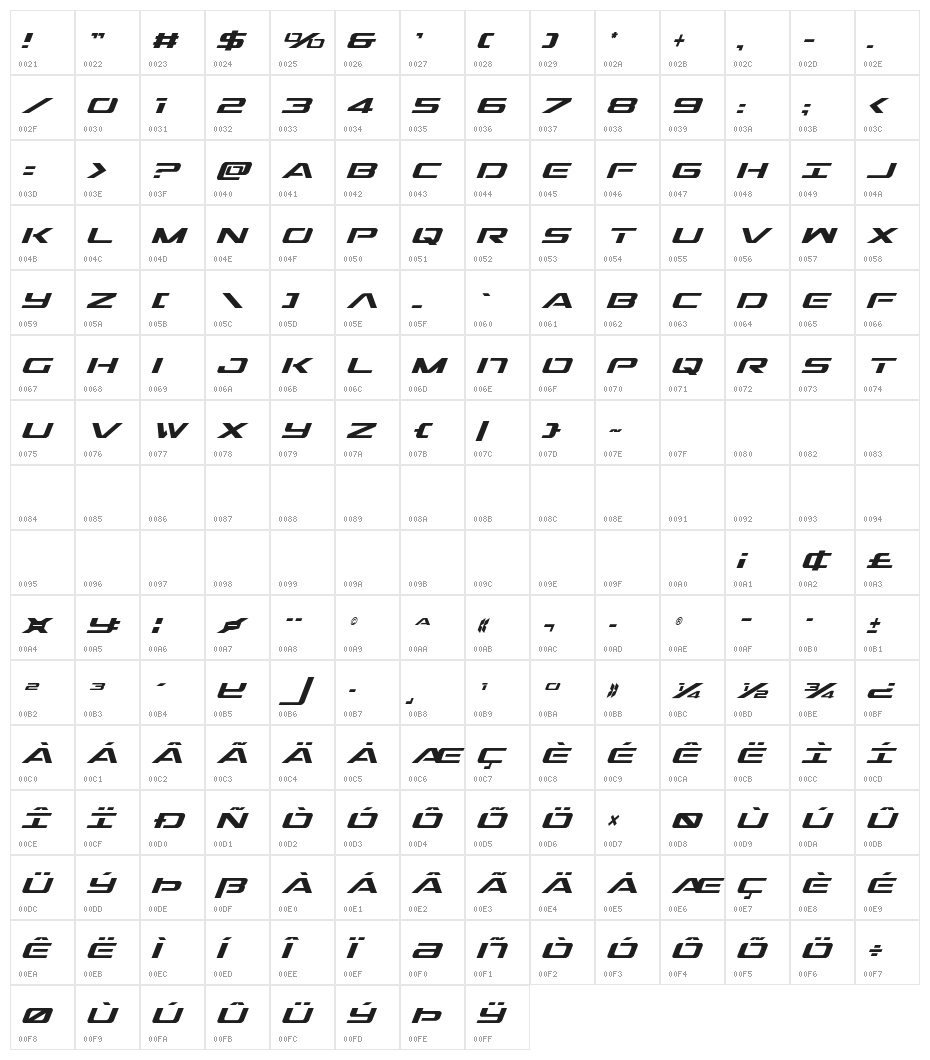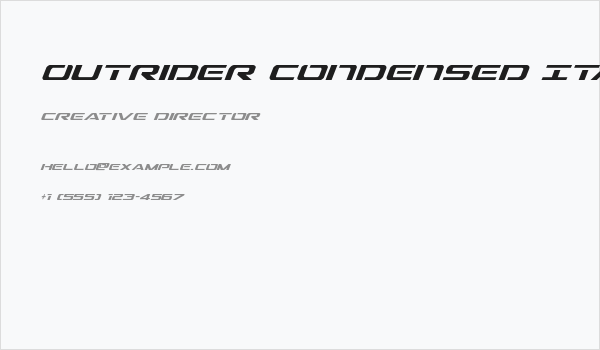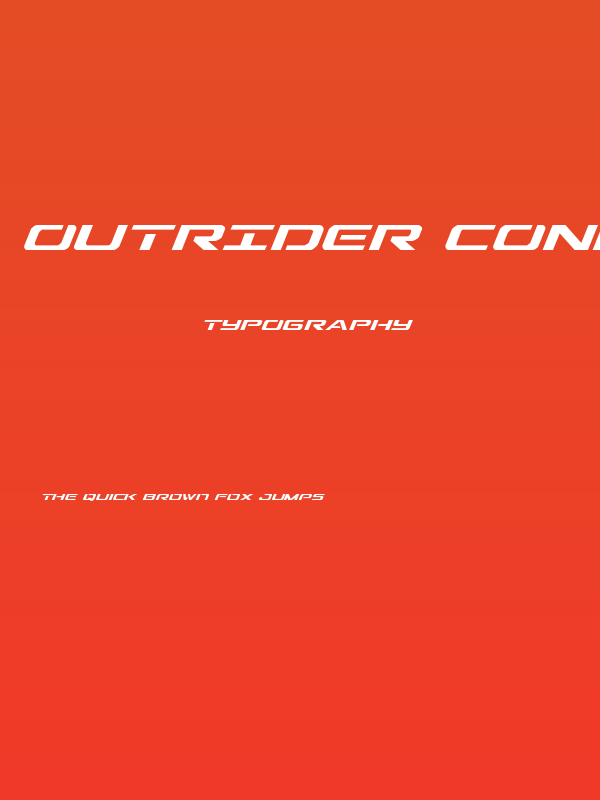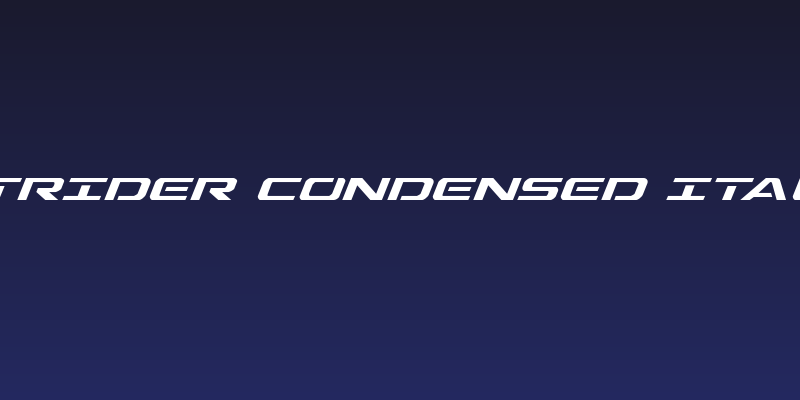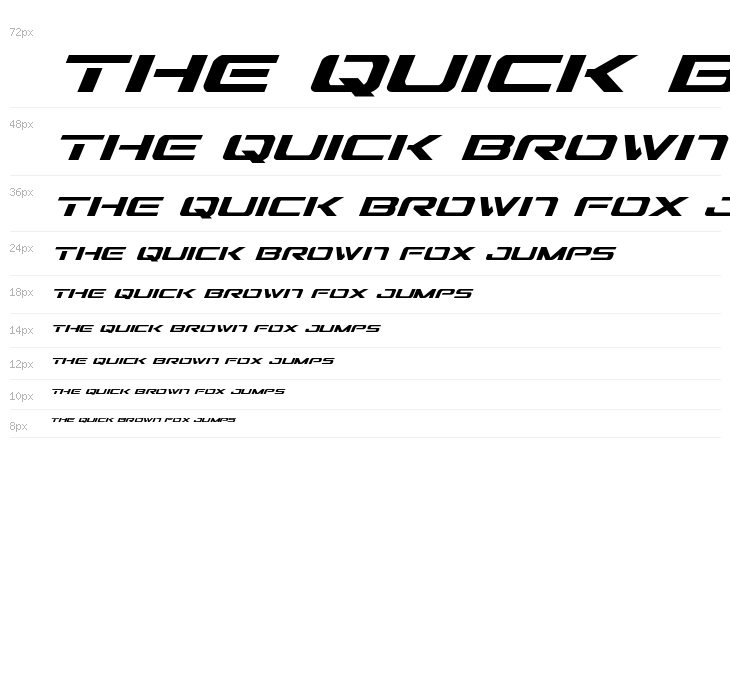
Outrider Condensed Italic Font
Outrider Condensed Italic Description
This font features a dynamic and futuristic style with a strong italic slant, giving it a sense of motion and speed. The characters are condensed, enhancing the sleek and modern appearance. Each letter is crafted with sharp angles and clean lines, contributing to its bold and assertive look. The font maintains a consistent stroke width, offering a uniform and cohesive design. Its geometric structure is evident in the precise alignment and symmetry of the characters, making it suitable for projects that require a contemporary and edgy aesthetic.
| Use Case | Logos, Headlines, Branding |
| Proposed Projects | Ideal for branding, sports team logos, automotive designs, and tech-related projects. |